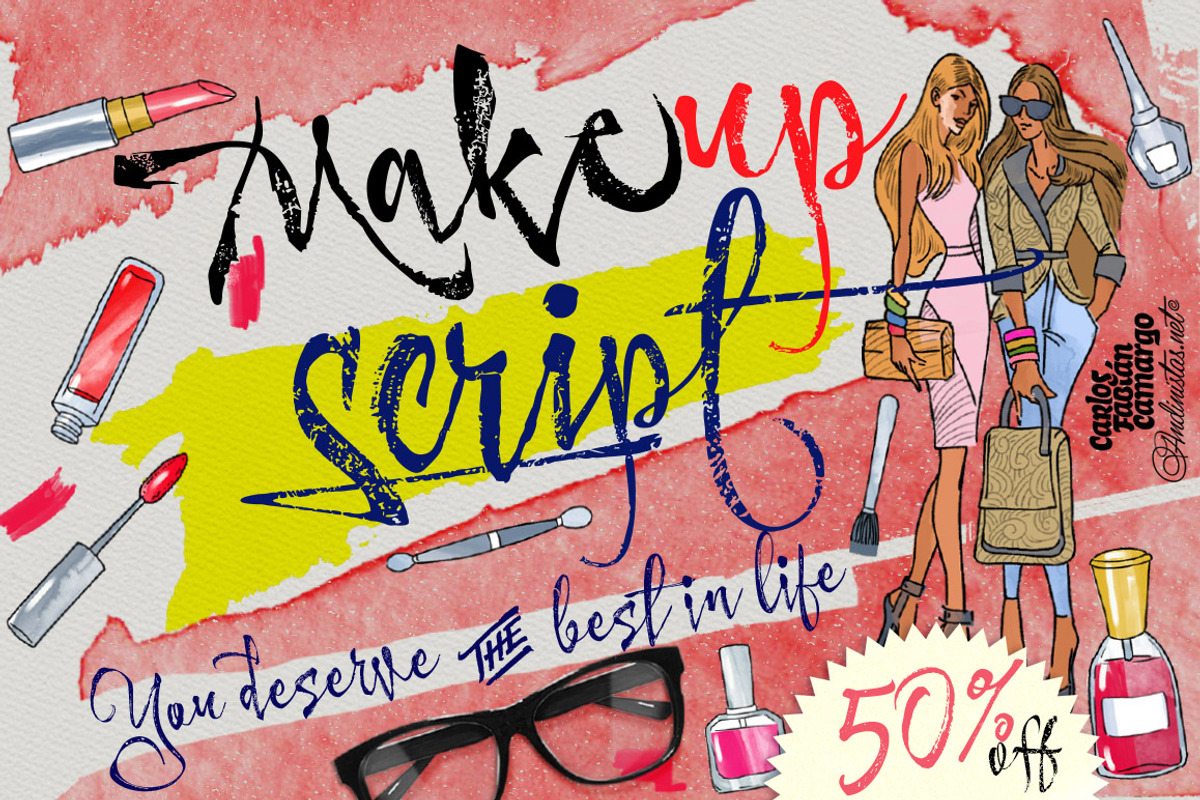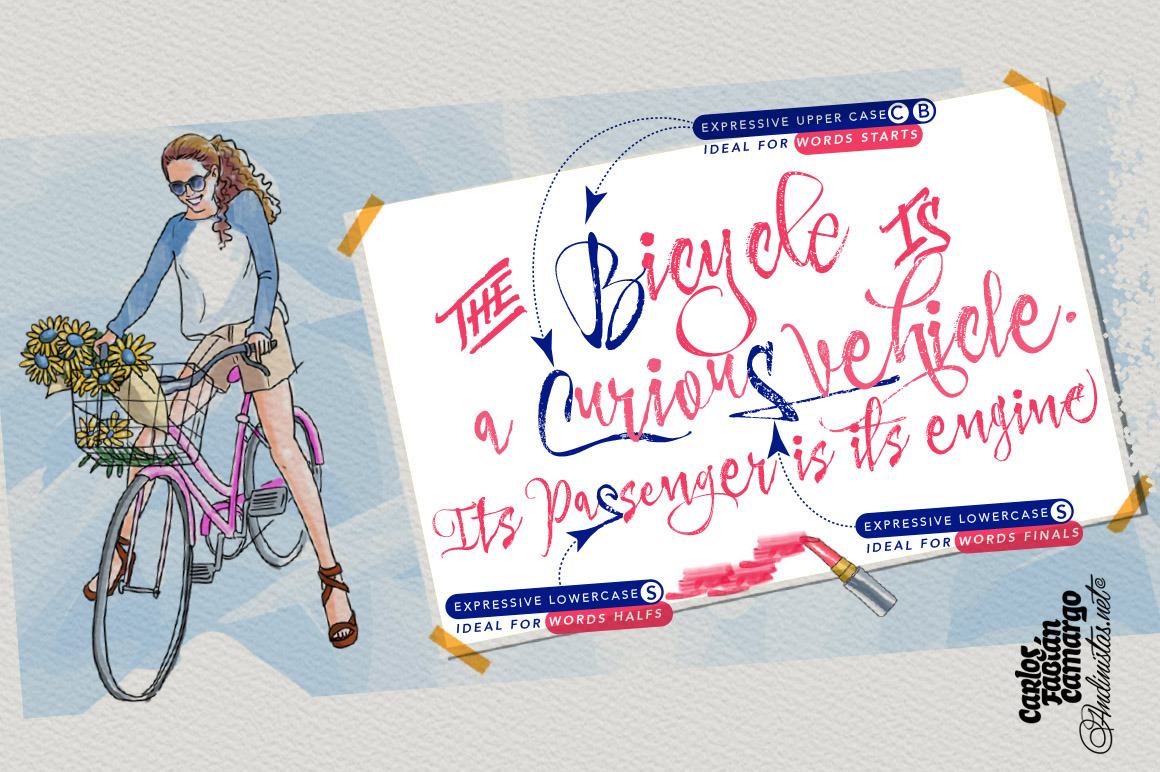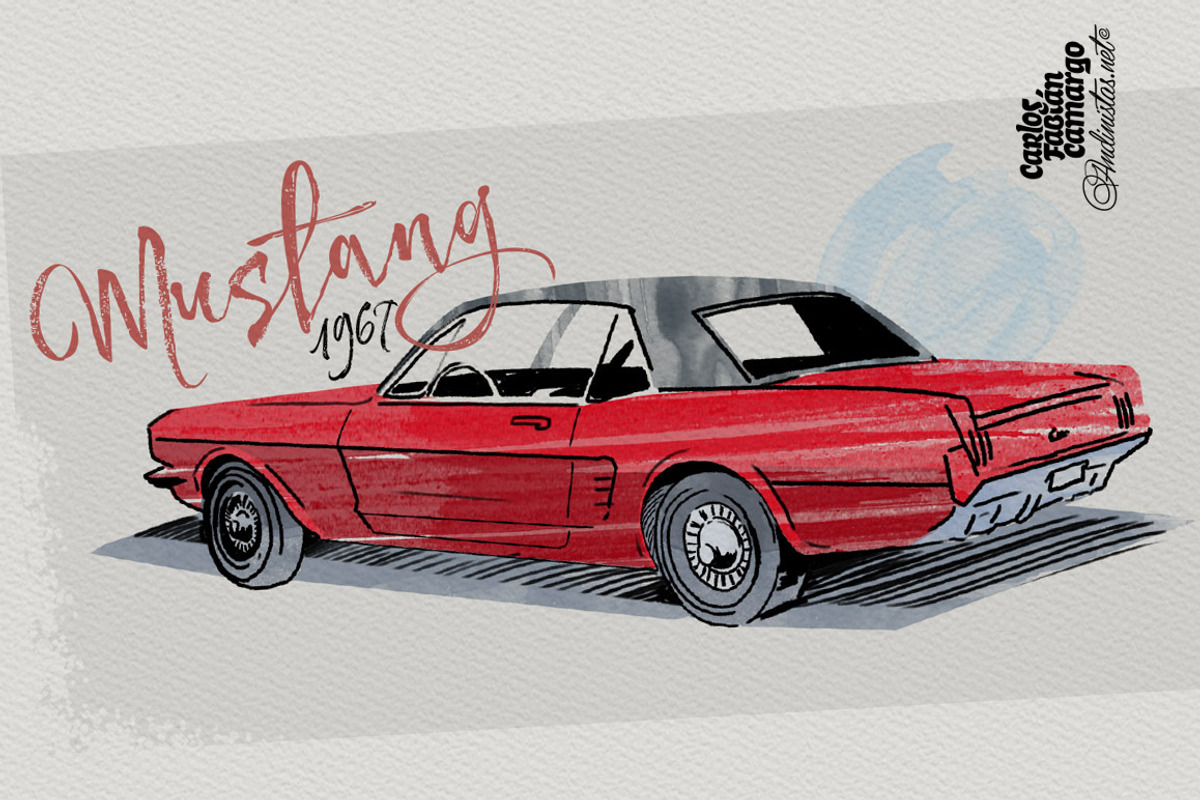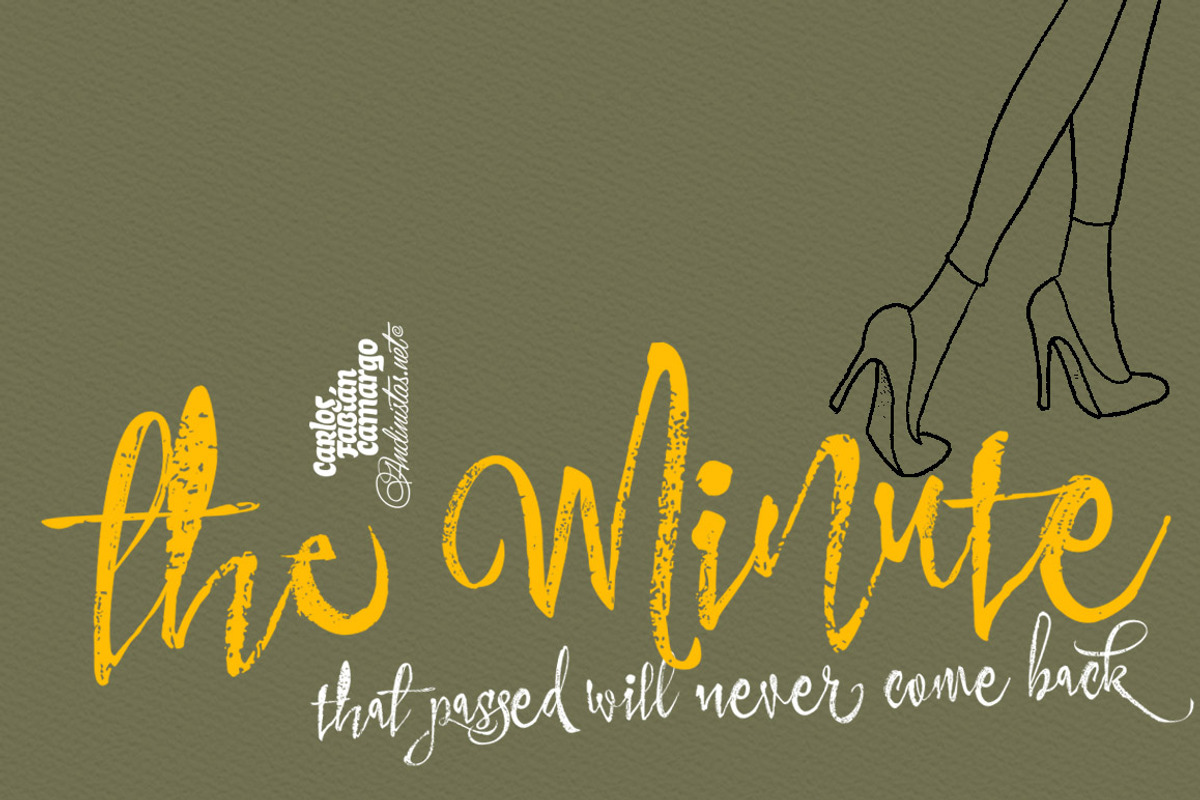
Makeup Type Family / 4 fonts
Andinistas.net presents ★Makeup Script★. Expressive hand-made typography to design sentences with high textured impact; has 4 creative tools. Our priorities are continually updated and we prefer to use the elevator since taking the stairs is a very long process. If you see a long text, you close it and look for something shorter. For quick calligraphy you need to consume hours and hours of learning, discomfort and effort. Think of calligraphic words or phrases to write about a photo no matter how expressive it may be. Try to write quickly with signature style for logos, labels or packaging for clothes, suitcases, shops, malls, department stores, etc.
Do you want to be able to calligraphy well? STUDY. Do you want to be a calligrapher? PRACTICE. Want to produce good ideas? PUSH YOURSELF. If you practice for hours every day, those hours will turn into years, but for many, to think in years of study and practice is too long, since most want everything instantaneous and few want to cultivate skills related to calligraphic patience.
Makeup was born in the midst of this type of reflections about countless themes about art, beauty and calligraphy. All the ideas that revolve around makeup parade through its insightful and solitary design, lover of instant and fast writing for graphic design related to food, household goods, fashion, etc. CFCG. teamwork by Carolina Suárez & Illustrations by Eder Salas.
In that order of ideas Makeup offers the following tools:
• Makeup Script (238 glyphs): It is a script with vibrant fleeting strokes that form capital letters, lowercase letters, numbers and character sets and extended punctuation for Central, Eastern and Western Europe.
• Makeup Alternates (238 glyphs): Offers new script possibilities, different from uppercase, lowercase, numbers that work at the beginning or end of words, in a way that your design will look more real and calligraphic.
• Makeup Swashes (238 glyphs): These are tiny script letters that reinforce the idea of fast binding between handwritten letters that will fill your design or concepts with power and expressiveness through multiple textured contours.
• Makeup Extras (80 glyphs): Here you'll find over 70 exciting, hand-crafted decorations that are ideal for underlining your ideas written in Makeup.